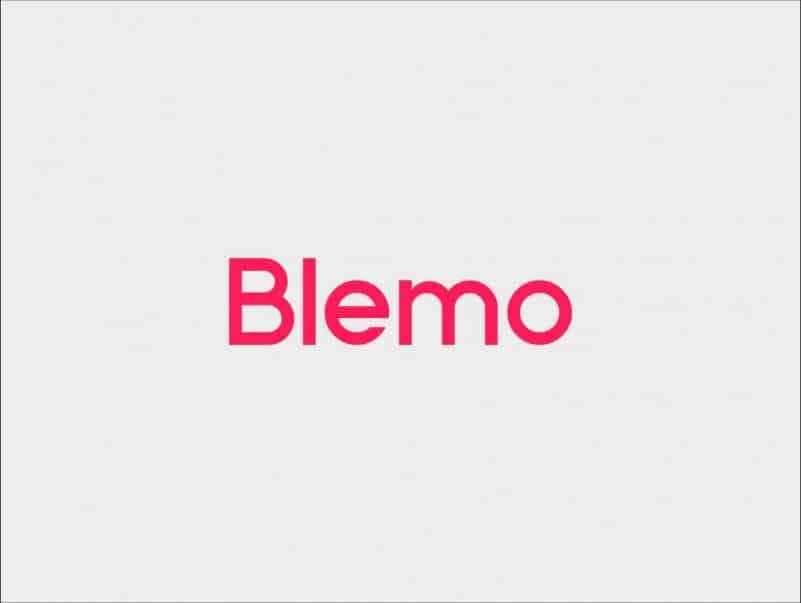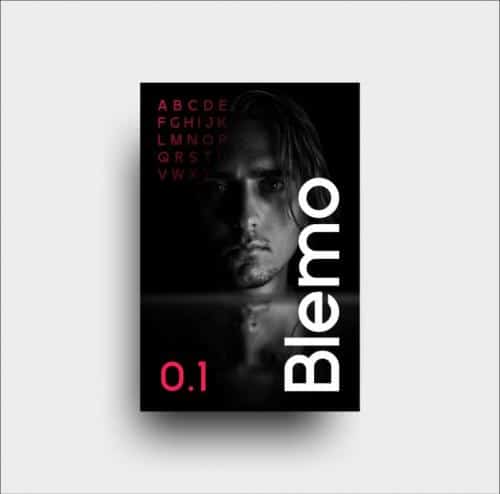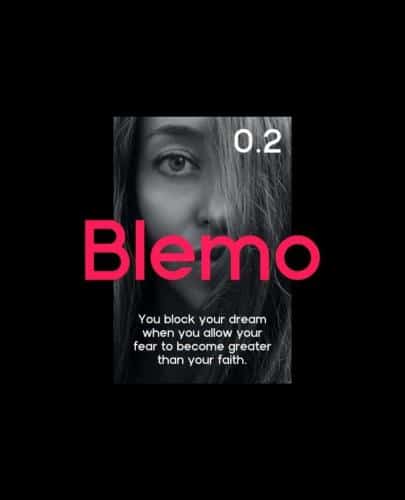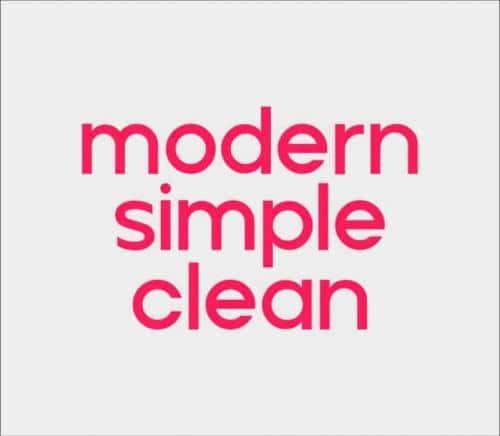
Blemo Sans Serif Font is a strict geometric type . In conventional geometric typefaces, basic geometry is often lost in the due to the stroke contrast of a round letter. Blemo is a type family that retains this basic geometry even within the stoke contrast of a letter.
- Designer: Artsigma Design